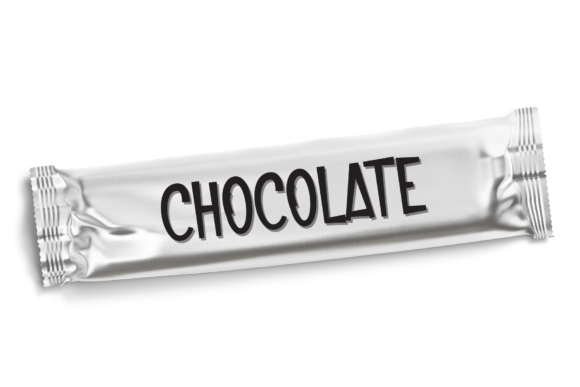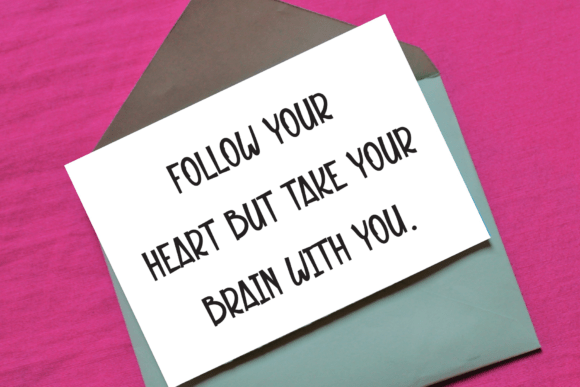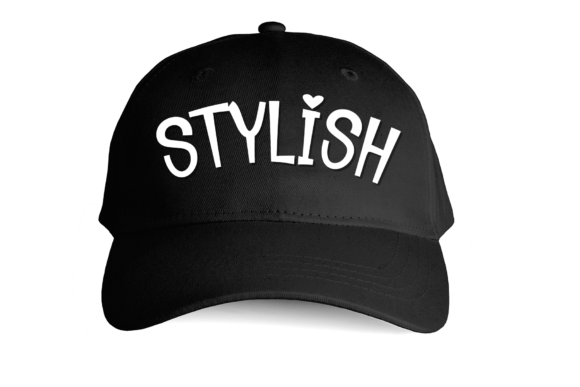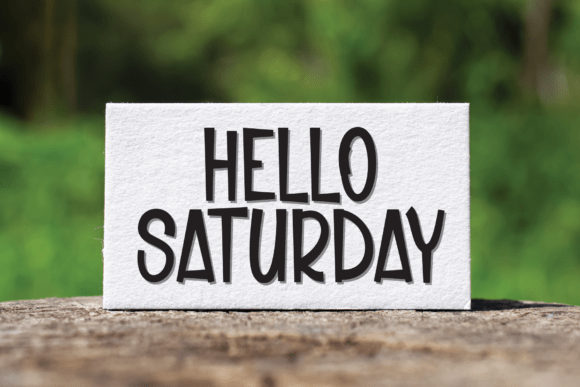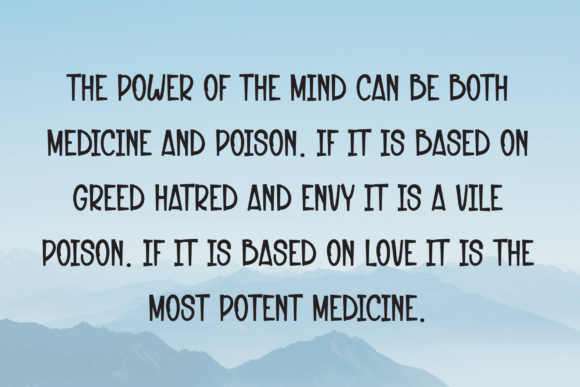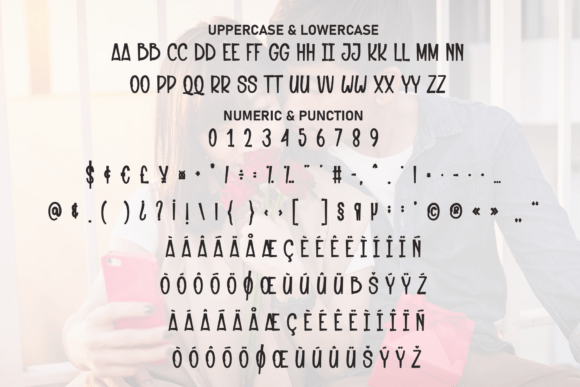
Discover the Charm of Darling Font: A Sweet and Warm-Hearted Handwritten Display Font
Are you looking for a font that can add a touch of magic to your design projects? Look no further than Darling Font, an irresistibly sweet and warm-hearted handwritten display font that is sure to capture your audience’s hearts. With its distinctive typographic style, Darling Font is perfect for crafting enchanting wedding invitations, heartfelt cards, or any design project seeking a sprightly touch.
The Characteristics of Darling Font
Darling Font is a handwritten display font that exudes charm and fun. Its unique and distinctive style is characterized by:
- Sweet and delicate letterforms: Each letter is carefully crafted to create a sense of whimsy and playfulness, making it perfect for designs that require a touch of elegance and sophistication.
- Warm and inviting texture: The font’s texture has a warm, hand-crafted feel that gives it a cozy and intimate feel, making it ideal for designs that require a personal touch.
- High legibility: Despite its delicate nature, Darling Font is highly legible, making it perfect for use in a variety of design projects, from wedding invitations to digital displays.
Uses for Darling Font
Darling Font is a versatile font that can be used in a wide range of design projects, including:
- Wedding invitations: Add a touch of romance and whimsy to your wedding invitations with Darling Font, making them truly unforgettable.
- Cards and stationery: Create heartfelt cards and stationery with Darling Font, perfect for special occasions such as birthdays, anniversaries, and holidays.
- Digital displays: Use Darling Font in digital displays, such as social media graphics, blog headers, and website titles, to add a touch of personality and charm.
- Branding and packaging: Darling Font can also be used in branding and packaging design to create a unique and memorable visual identity.
Why Choose Darling Font?
With so many fonts available, why choose Darling Font? Here are just a few reasons:
- Unique and distinctive style: Darling Font has a one-of-a-kind style that will set your designs apart from the rest.
- High-quality design: Darling Font is designed with high-quality craftsmanship, ensuring that it looks great in any design project.
Tips for Using Darling Font
Here are a few tips for getting the most out of Darling Font:
- Pair with contrasting fonts: Pair Darling Font with contrasting fonts to create visual interest and add depth to your designs.
- Experiment with colors: Try out different colors and textures to add an extra layer of personality to your designs.
- Don’t be afraid to get creative: Darling Font is a versatile font that can be used in a wide range of design projects, so don’t be afraid to think outside the box and try new things.
In conclusion, Darling Font is a sweet and warm-hearted handwritten display font that is perfect for designers and crafters looking to add a touch of charm and whimsy to their design projects. With its unique and distinctive style, high legibility, and versatility, Darling Font is sure to become a favorite in your font collection.